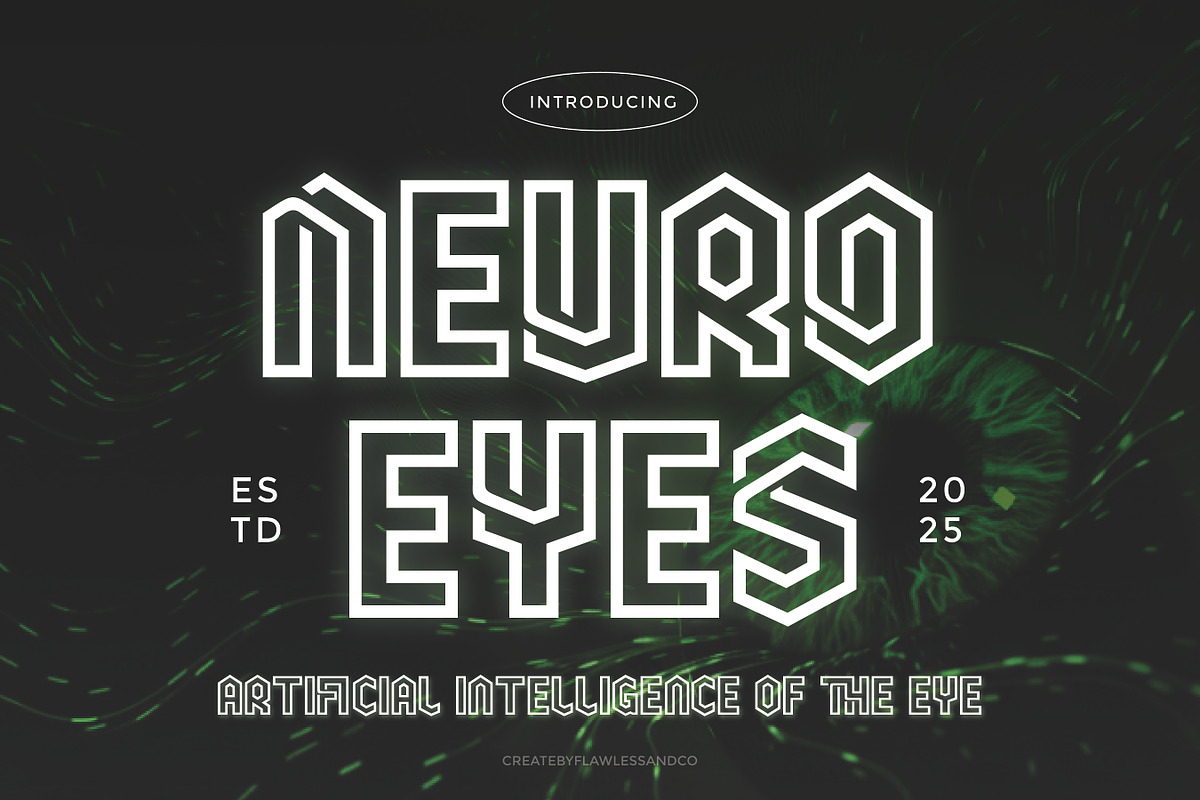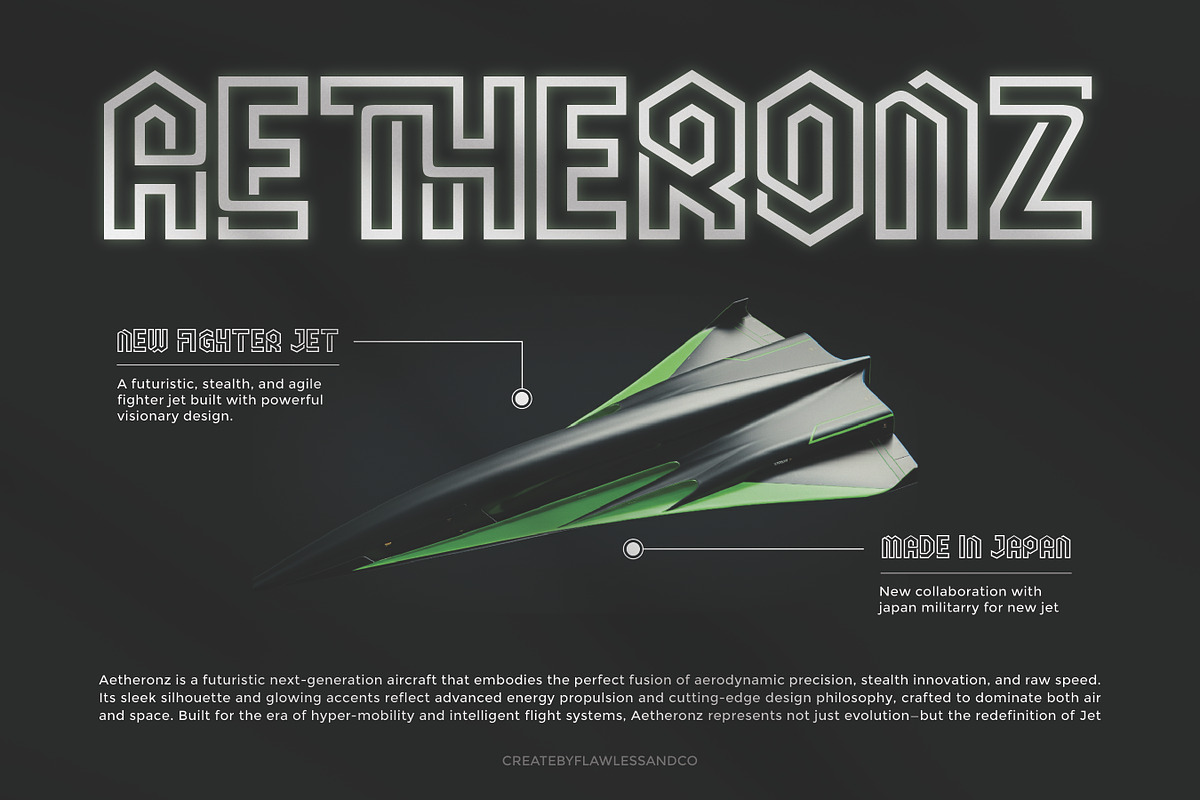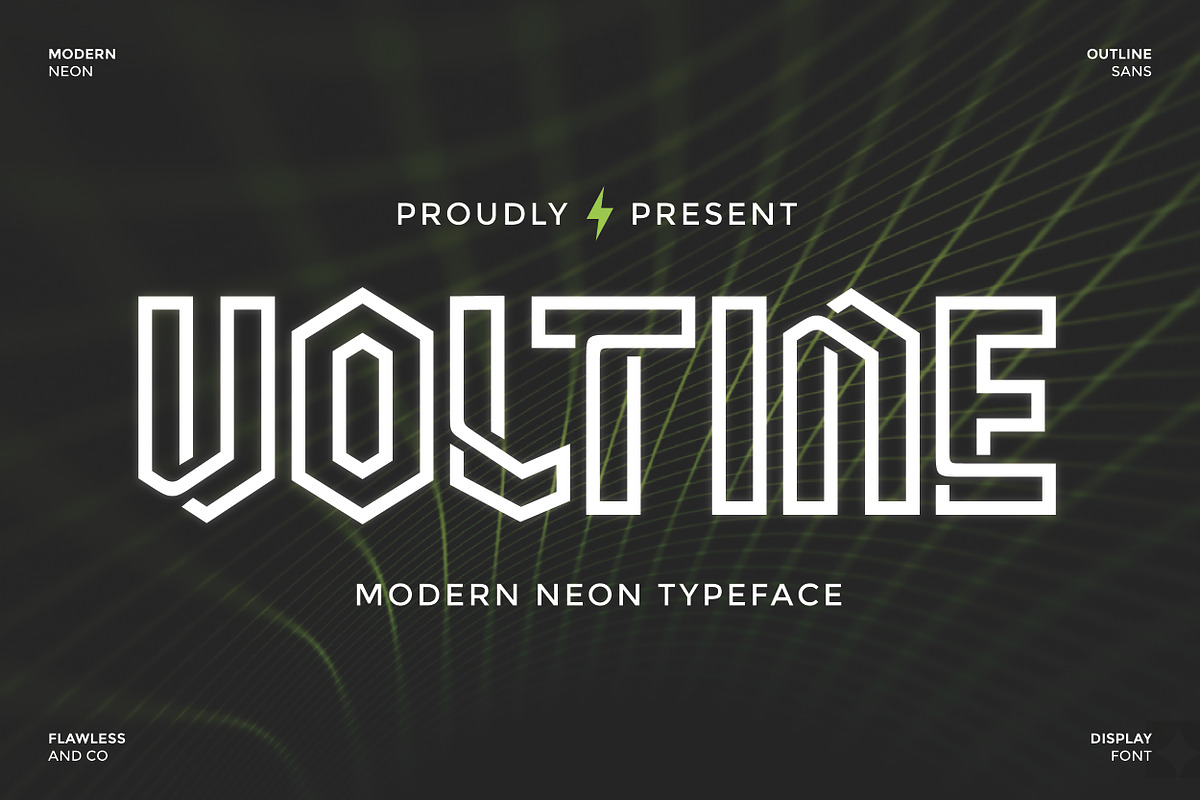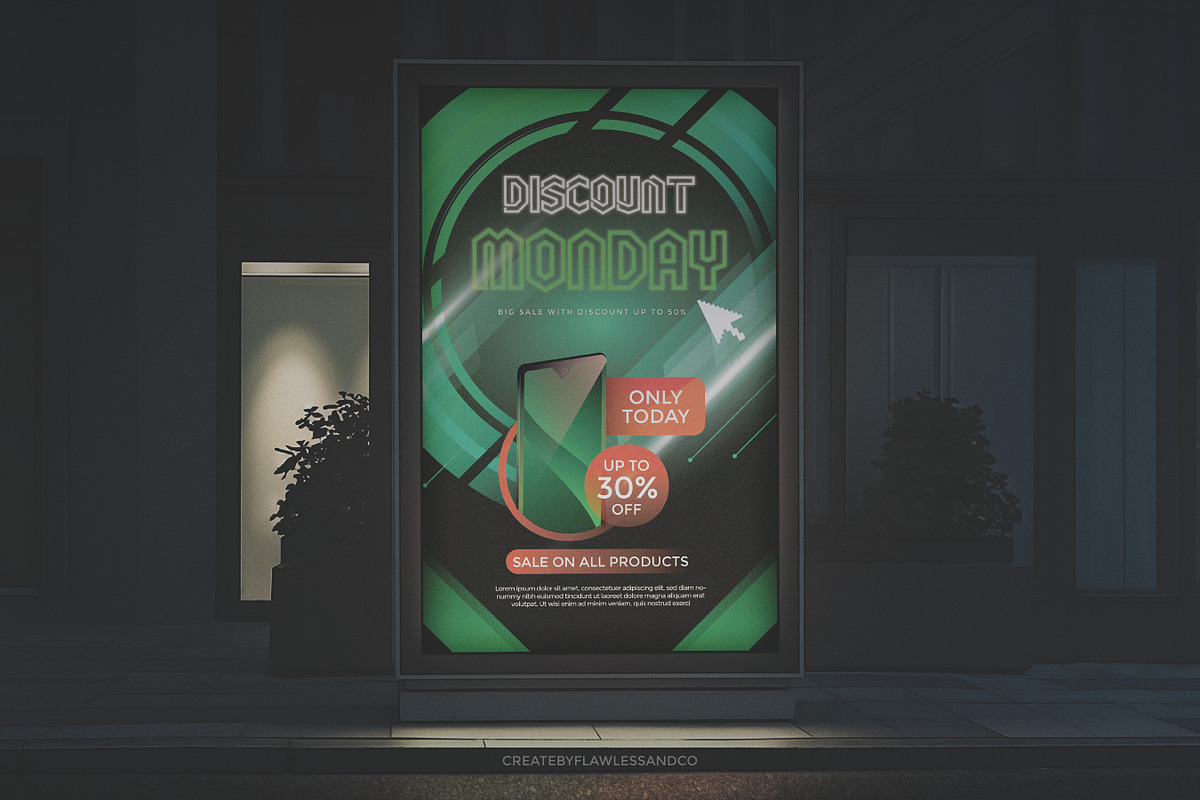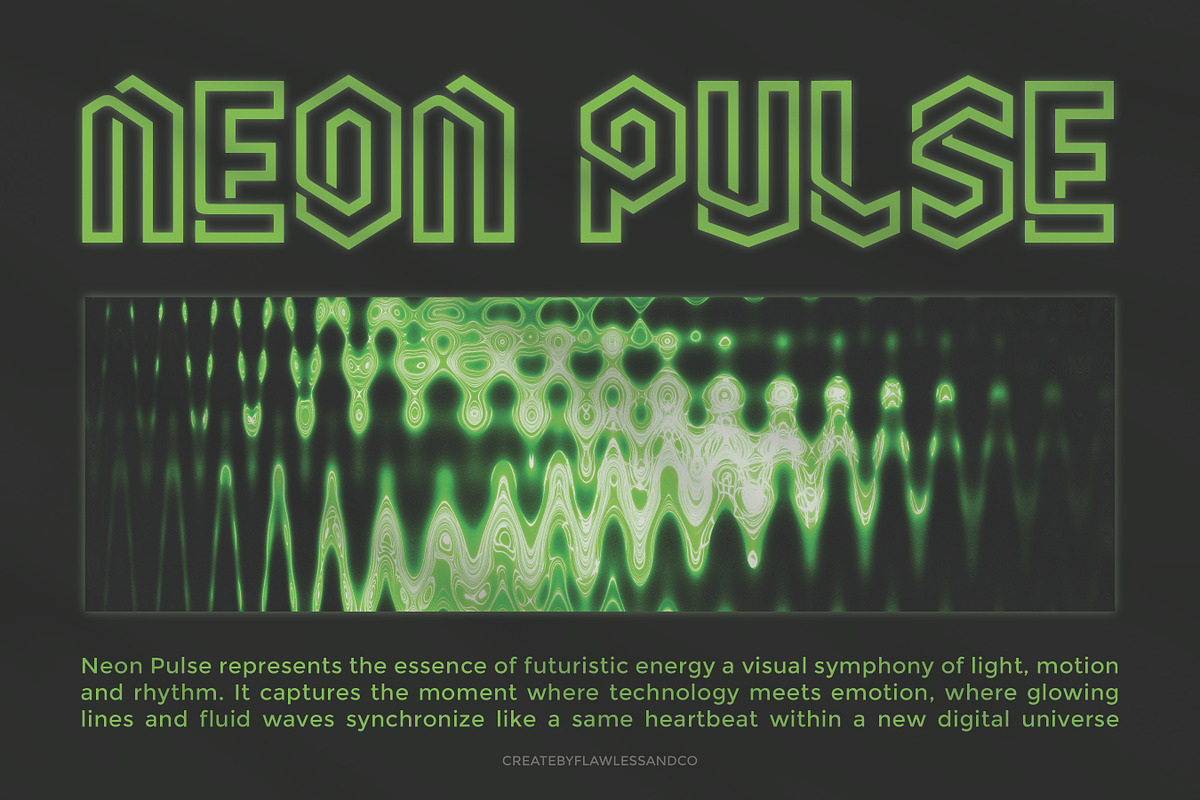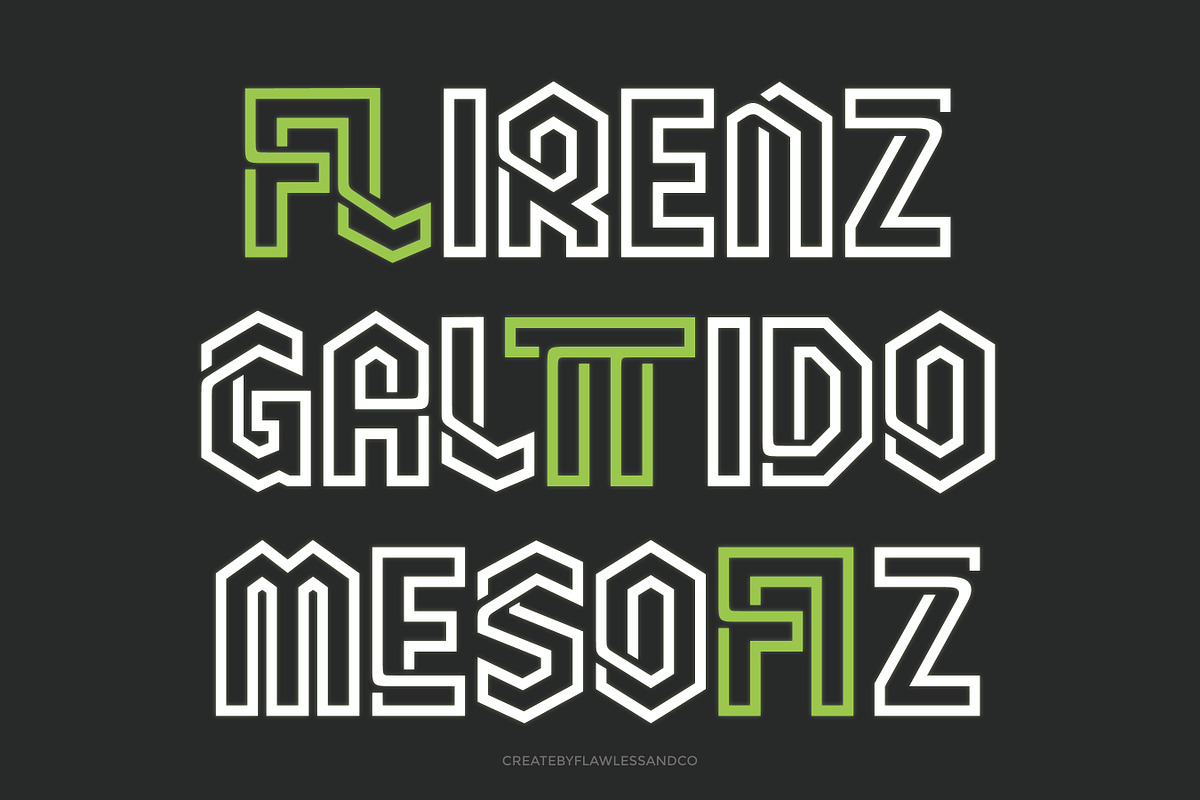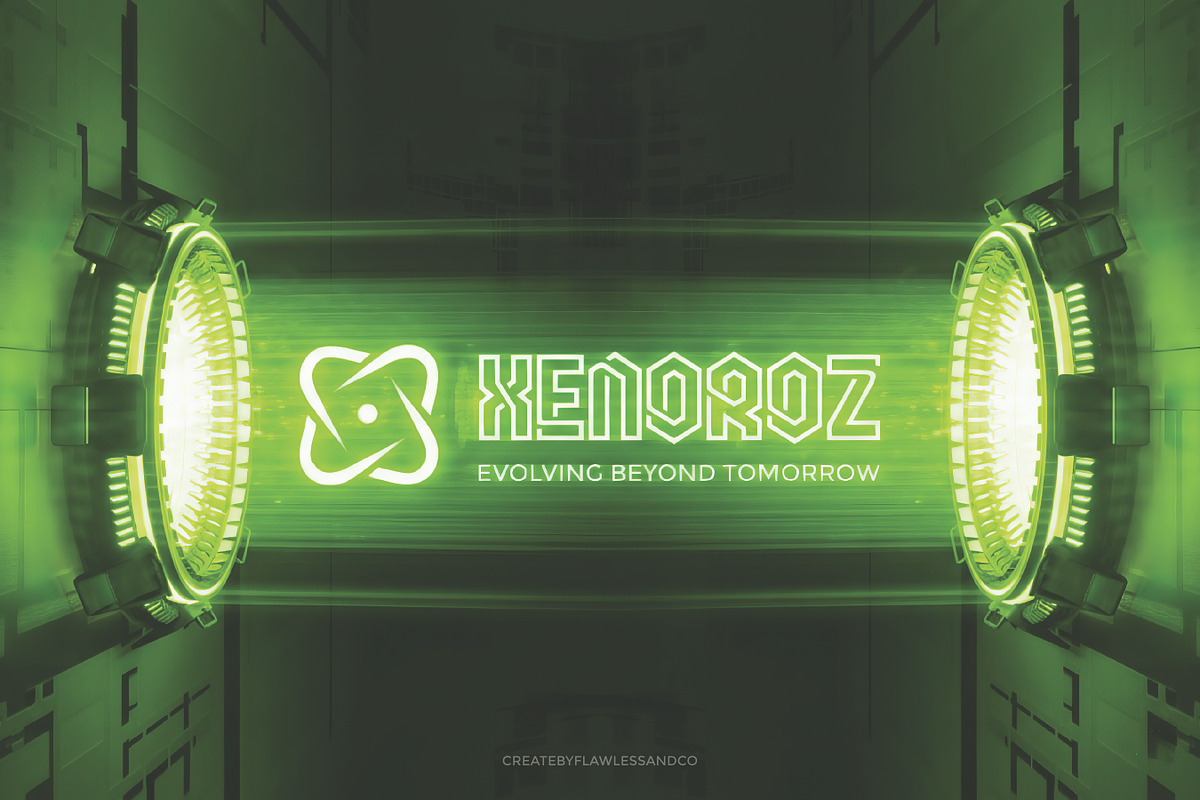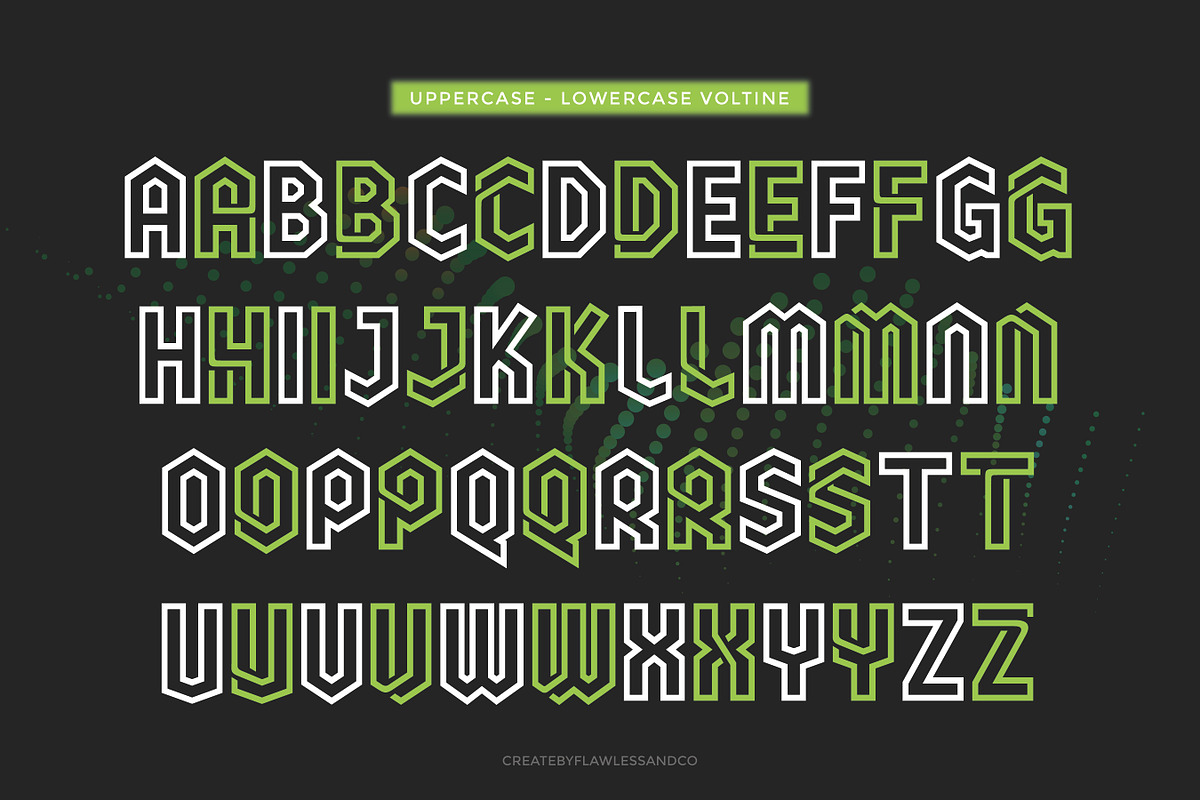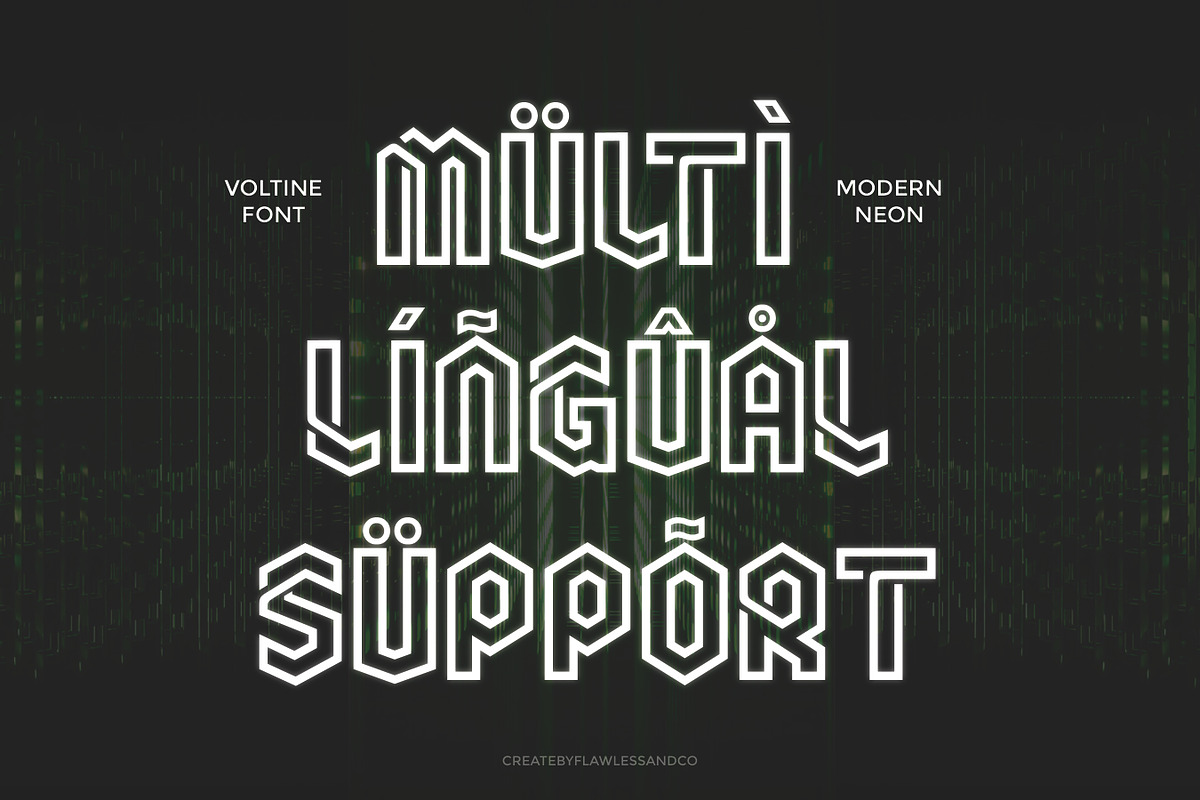
Voltine - Modern Neon Typeface
Voltine is a modern neon font that blends futuristic energy with geometric precision. Designed with sleek outlines and sharp angles, Voltine captures the essence of electric light — bold, bright, and dynamic. Perfect for creating glowing visuals, Voltine brings a sense of movement and innovation to any project. Its clean structure and modern neon aesthetic make it ideal for logos, posters, branding, and digital designs that need a striking, high-tech appearance
Who Should Use Voltine?
Voltine is designed for creatives, designers, and brands who want to capture a futuristic and energetic aesthetic in their work. It’s the perfect choice for projects that need a modern glow and bold presence.
Use Voltine if you want to:
- Build eye-catching brand identities with a sleek neon edge
- Design logos that feel modern, vibrant, and full of life
- Create music or entertainment posters that demand attention
- Develop tech, gaming, or digital media visuals with futuristic flair
- Craft modern packaging or typography layouts that glow with innovation
A Must-Have Font for "Brand and Logo" Creators and Designers
Voltine is a must-have font for designers and creators who want to bring bold, futuristic energy into their branding projects. Its geometric neon outline and modern construction make it stand out effortlessly — perfect for logos, visual identities, and statement designs.
Why Choose Voltine for "Brand and Logo" Projects?
Voltine combines modern neon aesthetics with strong geometric precision, creating a font that instantly grabs attention. Its bold outline design delivers a futuristic and high-energy vibe — perfect for brands that want to appear innovative, stylish, and forward-thinking. Every letter in Voltine is crafted to make your logo or brand identity stand out in digital and print, giving your project a distinctive glow and a sleek, professional edge. Whether you’re designing for tech startups, fashion labels, or creative industries, Voltine brings the perfect balance of modern design and visual impact.
Suitable For:
- Brand identities and logo design
- Neon signage and modern storefronts
- Music, club, and entertainment posters
- Futuristic and tech-related projects
- Gaming and e-sport branding
- Digital art, YouTube, and streaming visuals
- Fashion and lifestyle branding
- Social media graphics and promotional designs